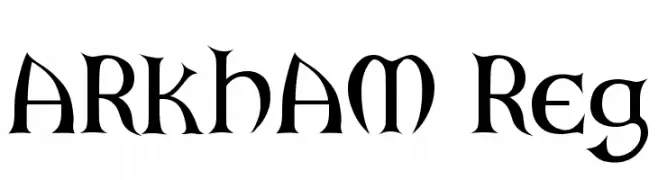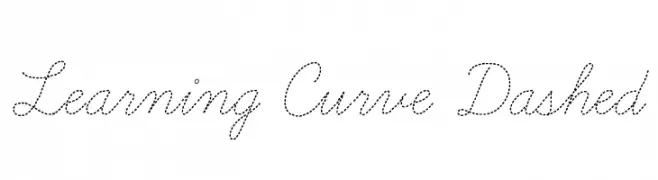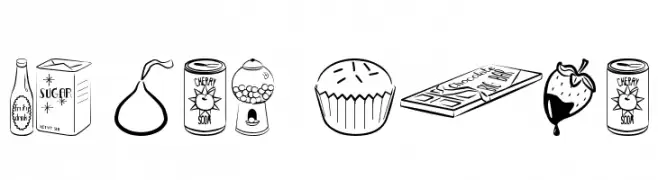
( Fonts by James Cianciaruso - Ablaze )
A gothic-inspired font with sharp serifs and a dramatic, bold presence.
( Fonts by Blue Vinyl - Jess Latham - www.bvfonts.com )
A bold, rounded outline font with a modern and playful style.
( Fonts by Blue Vinyl - Jess Latham - www.bvfonts.com )
A graceful script font with fluid, connected strokes and elegant curves.
( Fonts by Blue Vinyl - Jess Latham - www.bvfonts.com )
A dotted, cursive-style font ideal for educational purposes.
( Fonts by Blue Vinyl - Jess Latham - www.bvfonts.com )
A whimsical decorative font featuring sweet treats as characters.
( Fonts by Blue Vinyl - Jess Latham - www.bvfonts.com )
A 1970s-themed decorative dingbat font with iconic retro illustrations.
( Fonts by Blue Vinyl - Jess Latham - www.bvfonts.com )
A decorative set of feminine-themed icons and symbols.
( Fonts by Blue Vinyl - Jess Latham - www.bvfonts.com )
A decorative symbol font featuring stars, hearts, and arrows with a playful style.
( Fonts by Blue Vinyl - Jess Latham - www.bvfonts.com )
A collection of music-themed icons in a clean, modern line art style.